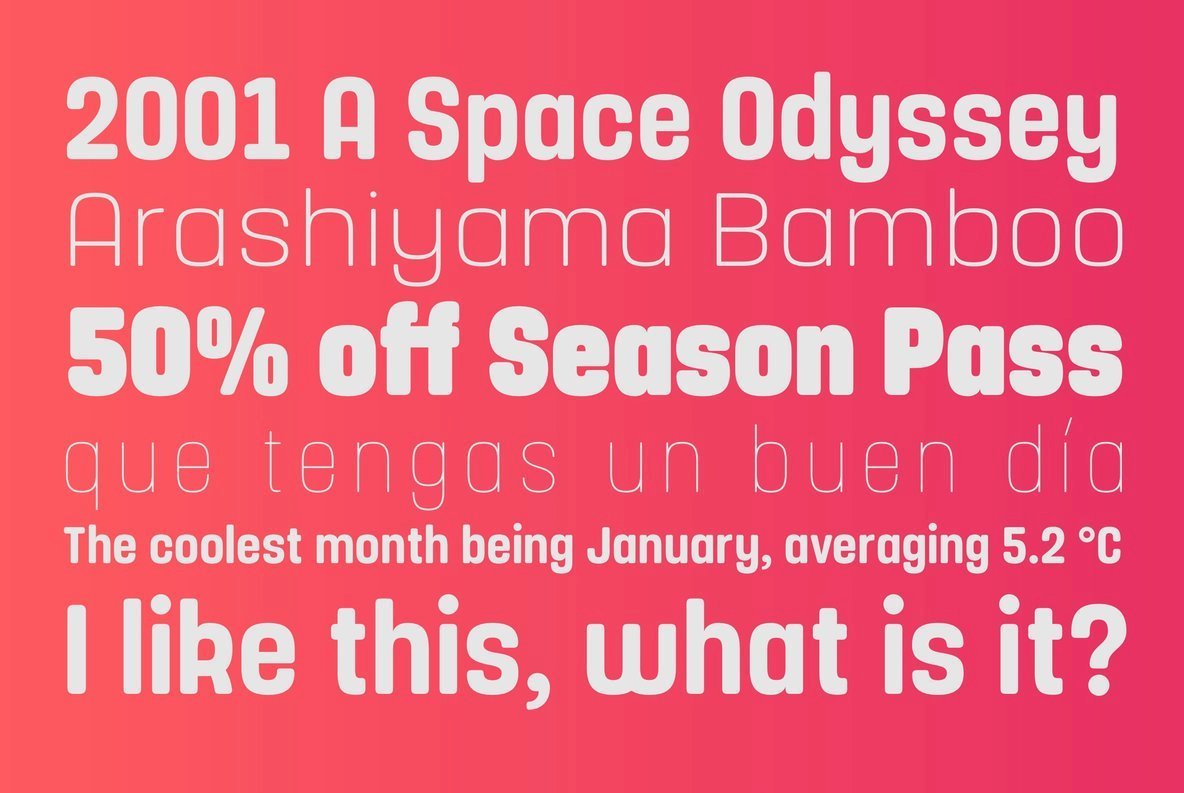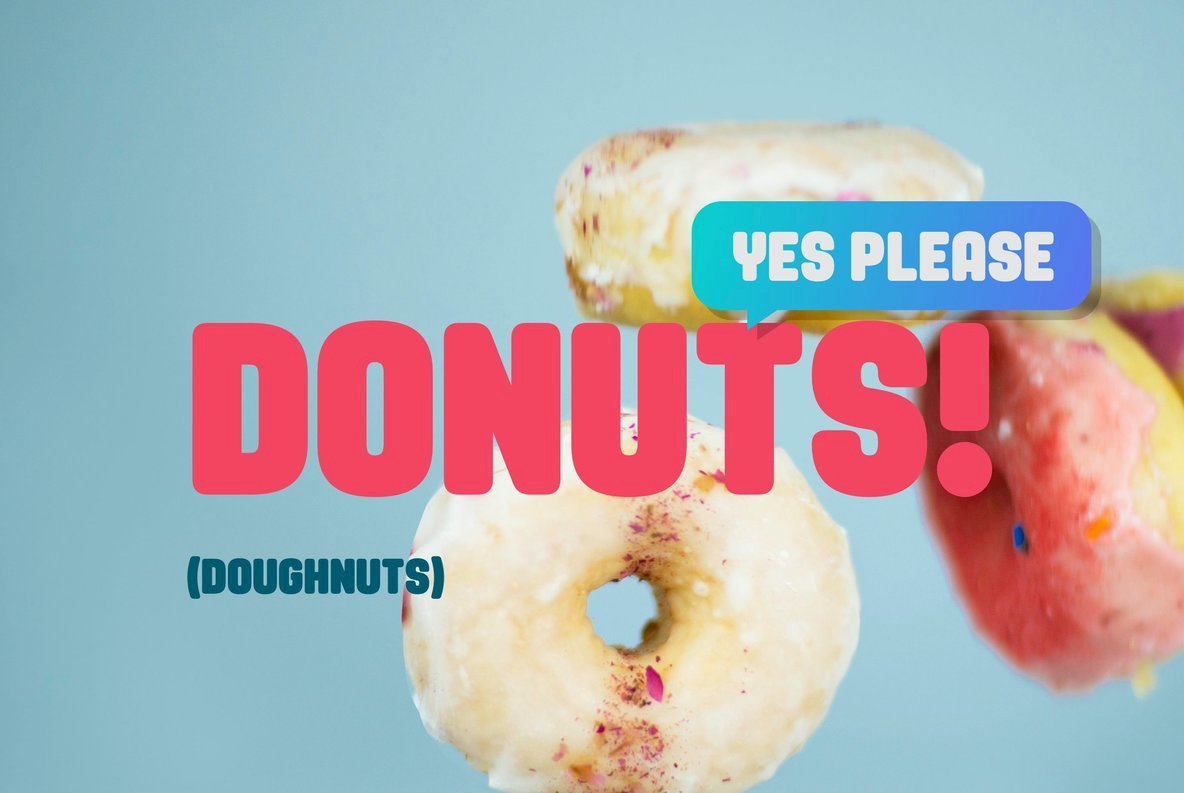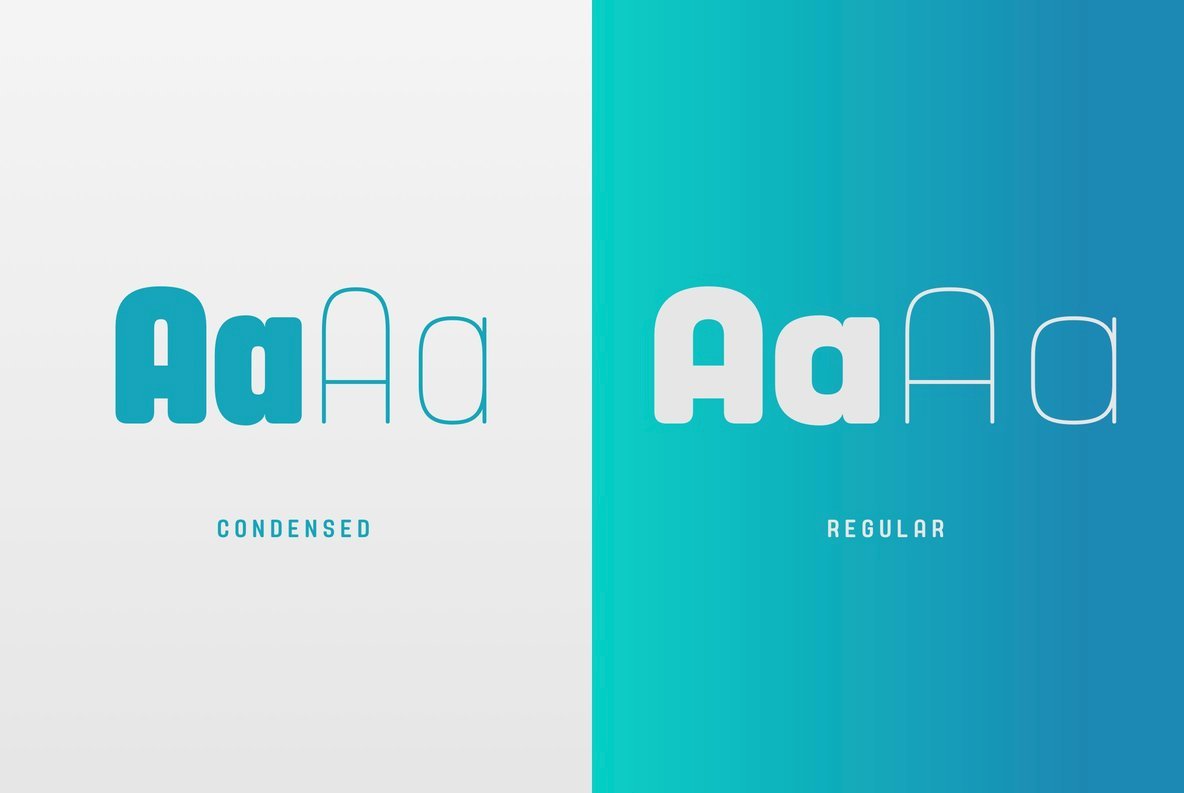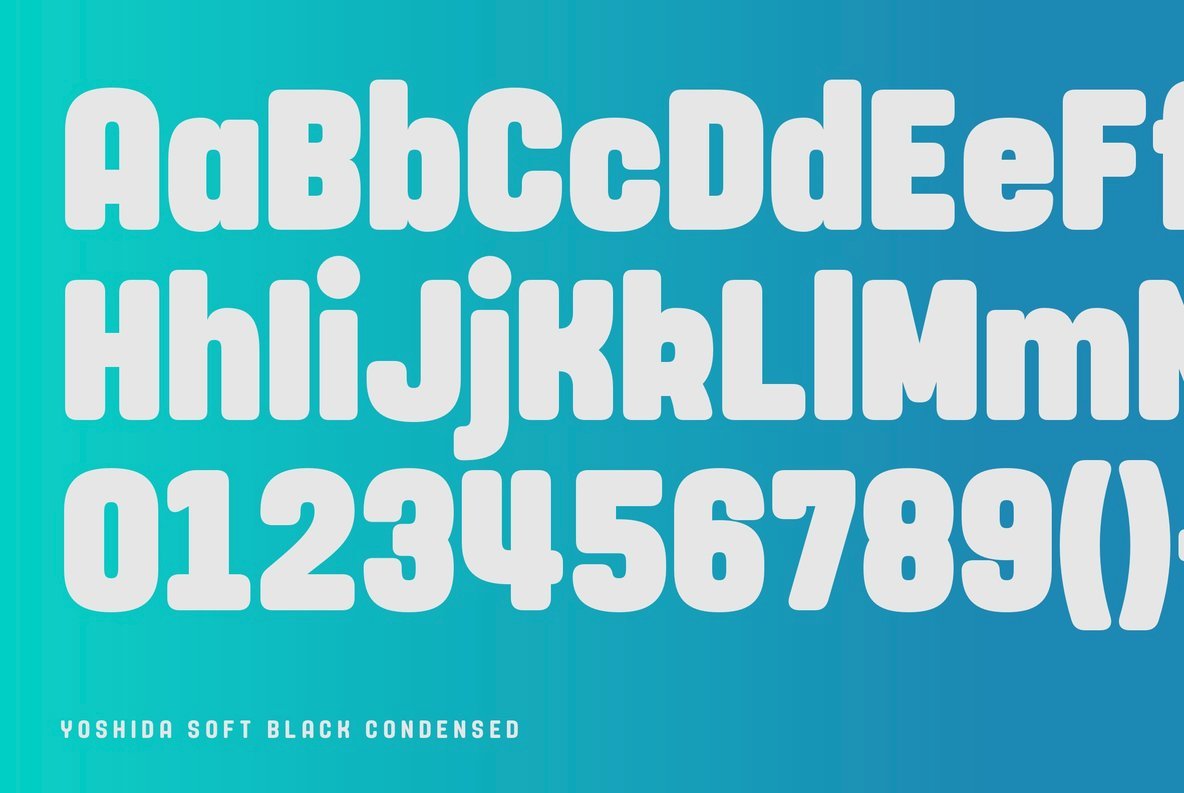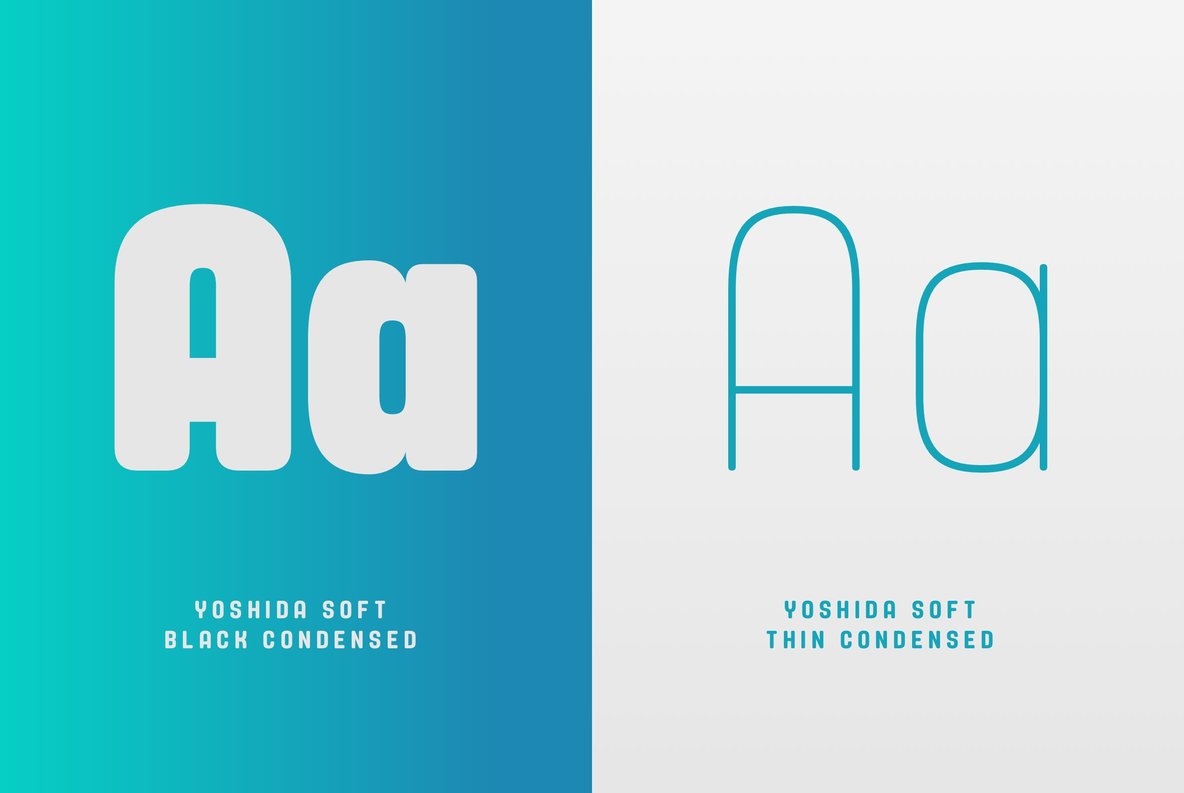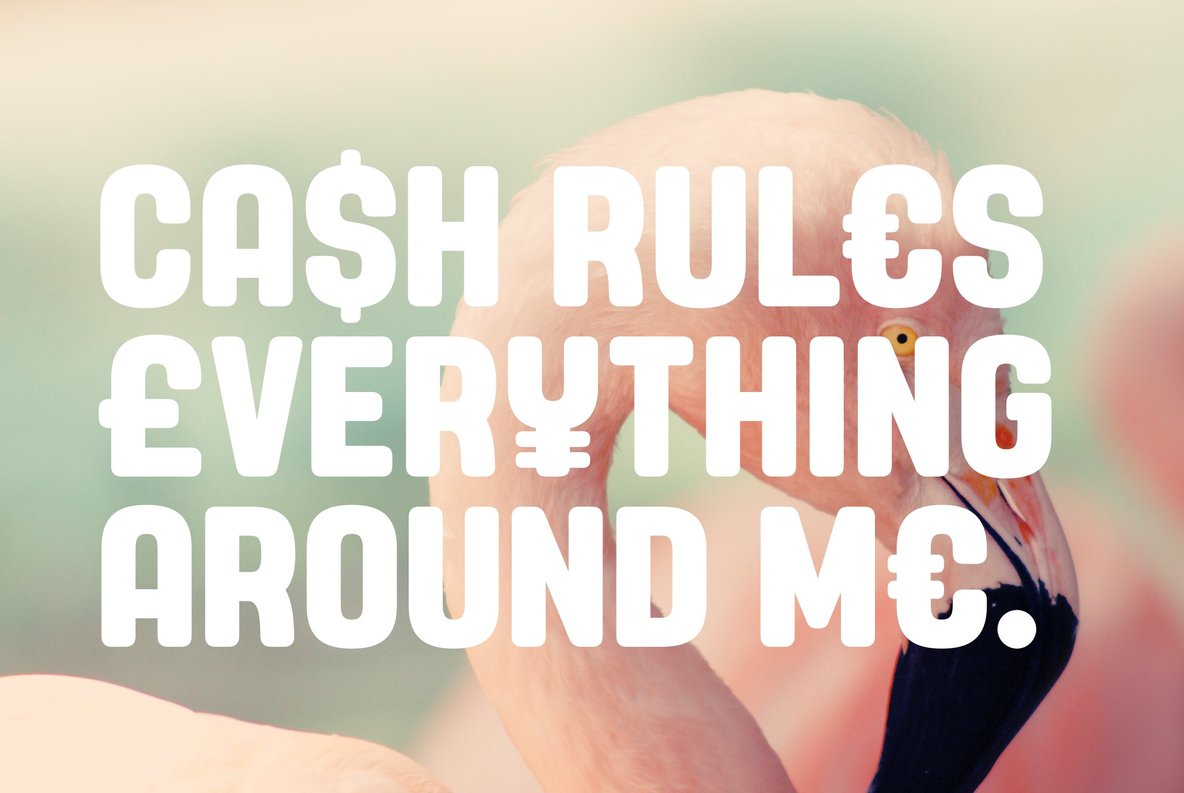
Yoshida Soft Font
Yoshida Soft is the cheeky partner in crime to Yoshida Sans. Based on the original sans, we've gone heavy with the curves to create a unique font that again comes in 2 widths and 8 weights and which has a multitude of uses from branding to posters to digital applications.